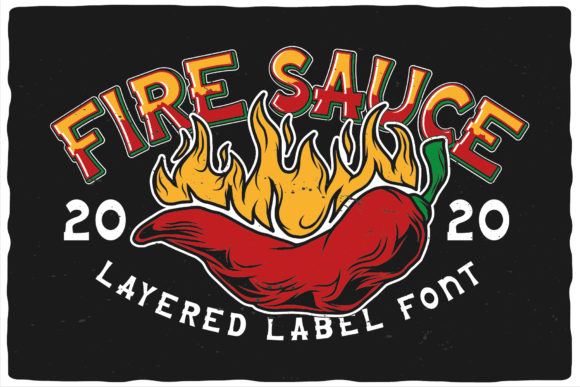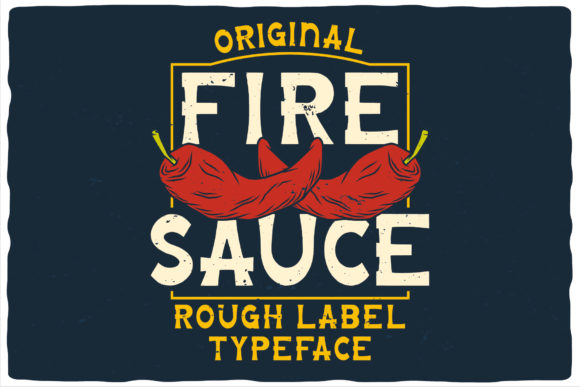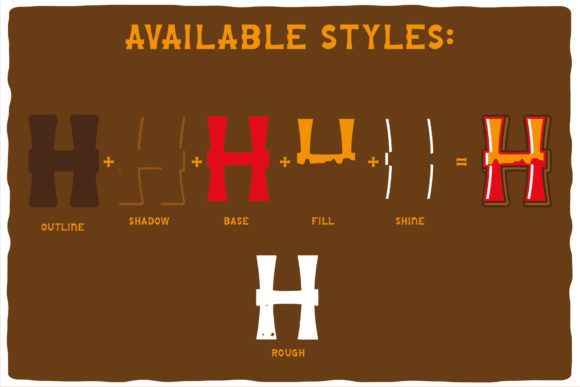
Fire Sauce Font: Bold Retro Display Font for Eye-Catching Designs!
About the Fire Sauce Font
Crafted with precision, the Fire Sauce Font is ready to bring your ideas to life. Fire Sauce is a bold and retro styled display font. Add it to each of your creative ideas that may require a vintage, powerful touch.
Fire Sauce excels as a display font for headlines, posters, and branding projects needing a vintage, high-impact aesthetic. Its boldness makes it ideal for short, memorable phrases, logos, and packaging designs where it can command attention. Avoid using it for body text or longform content; its weight and stylistic details hinder readability in smaller sizes.
This font’s retro boldness pairs well with clean sans-serif fonts like Helvetica or Open Sans for a balanced contrast. For a more playful feel, consider pairing it with a rounded geometric sans-serif. A script font could add a touch of vintage elegance, but ensure legibility remains a priority.
Fire Sauce projects a confident, rebellious energy, perfect for brands focused on classic styles with a modern twist – think vintage clothing lines, motorcycle brands, or craft breweries. Its personality is bold and assertive, not delicate or subtle.